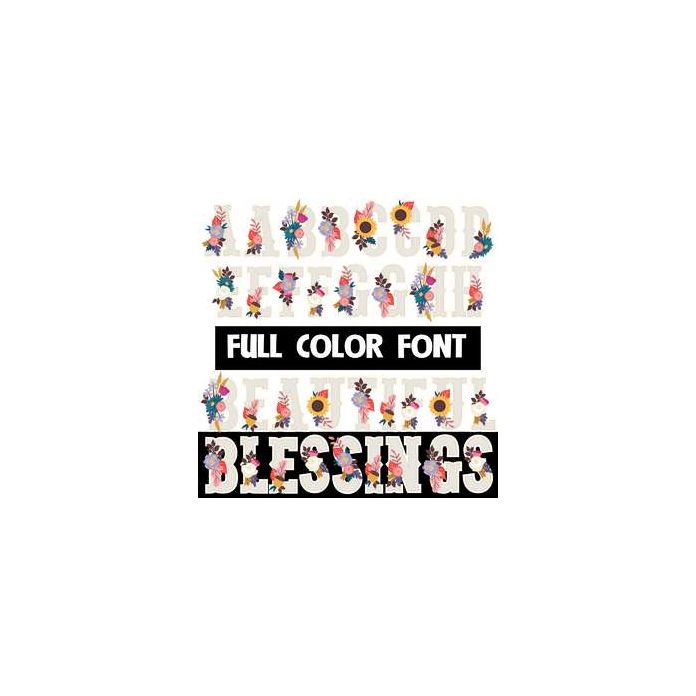
This full-color font features beautiful florals on light-colored lettering. This font works best for titles, displays, posters and more. Please note color fonts will show as black in non compatible programs. This font type is compatible with Silhouette Studio.